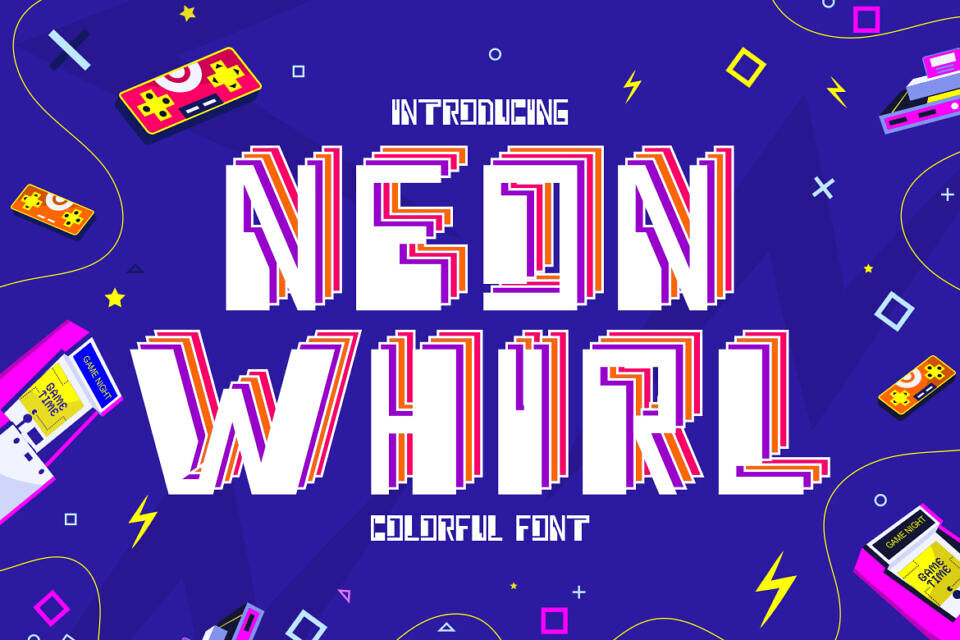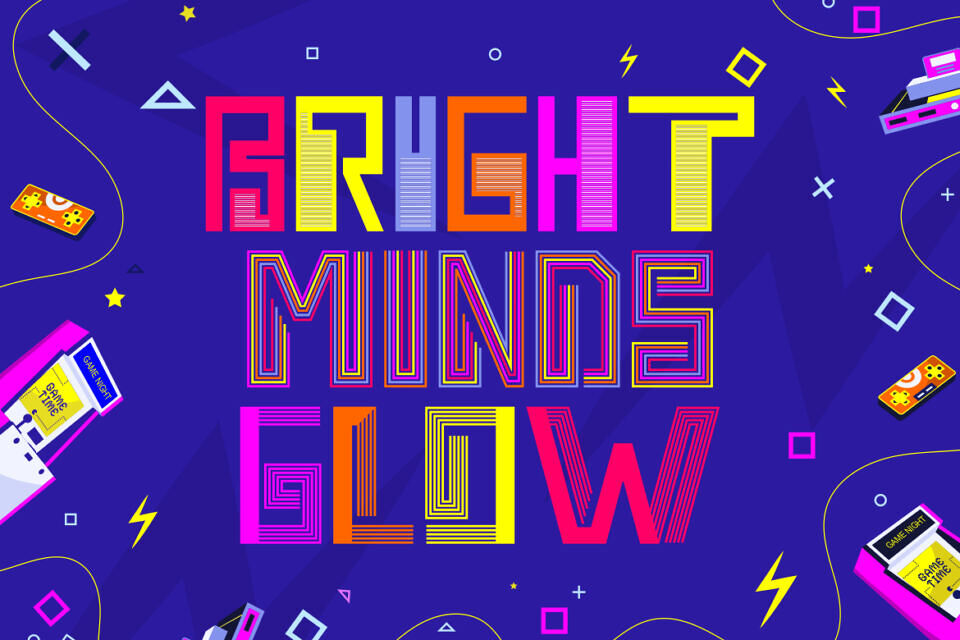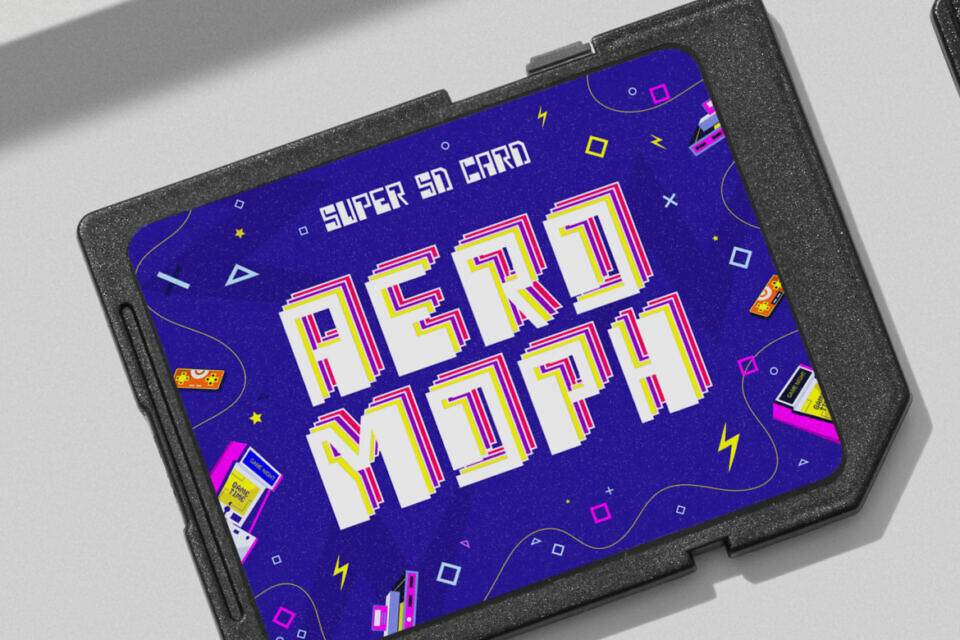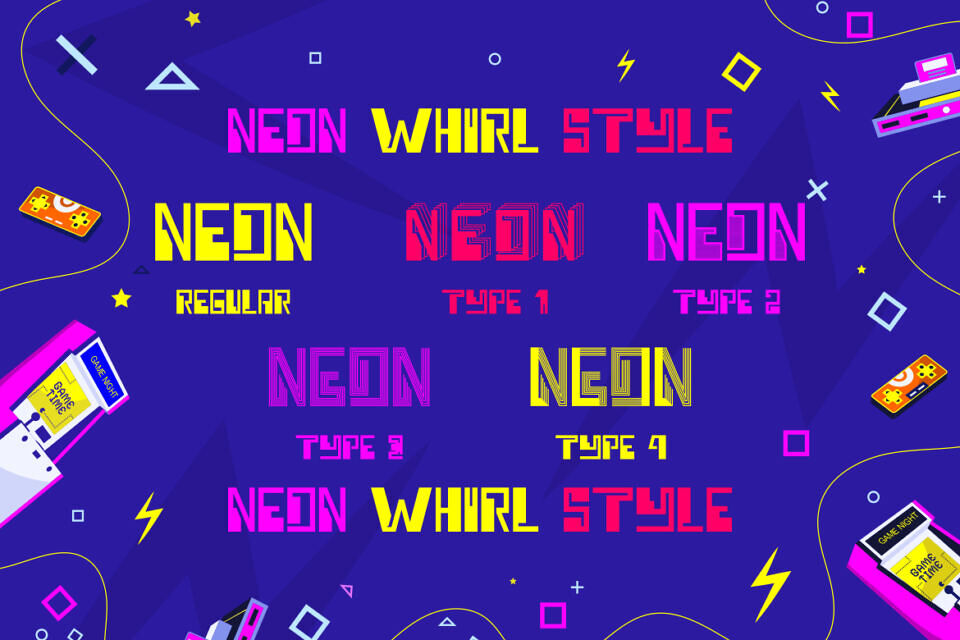
Neon Whirl Font
Neon Whirl is a playful, futuristic display font featuring vibrant stacked neon lines in magenta, yellow, cyan, orange, and red on white. Its bold, geometric design, reminiscent of retro games, offers high visual impact and excellent readability.
Ideal for youthful brands, games, and sci-fi projects, Neon Whirl’s vector format ensures seamless use across print and digital media. Inject excitement into logos, posters, and more with this expressive, versatile font.